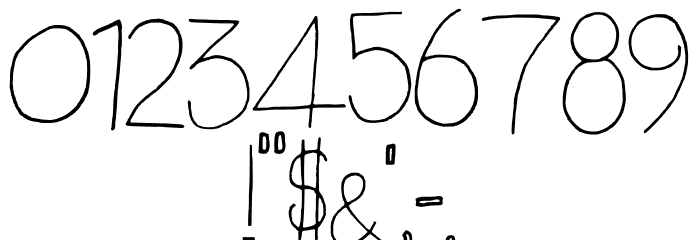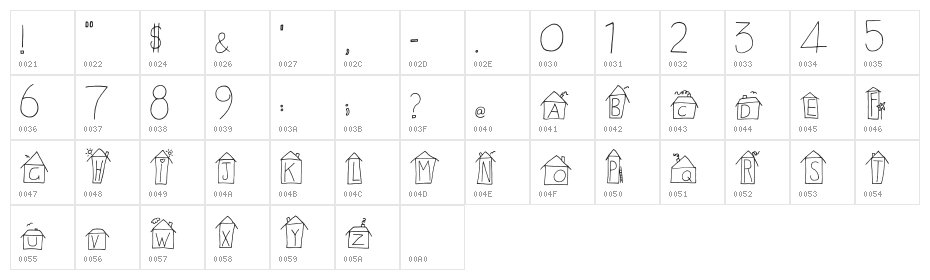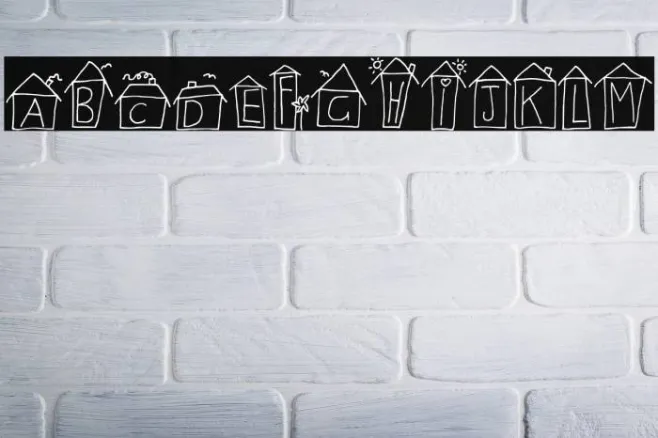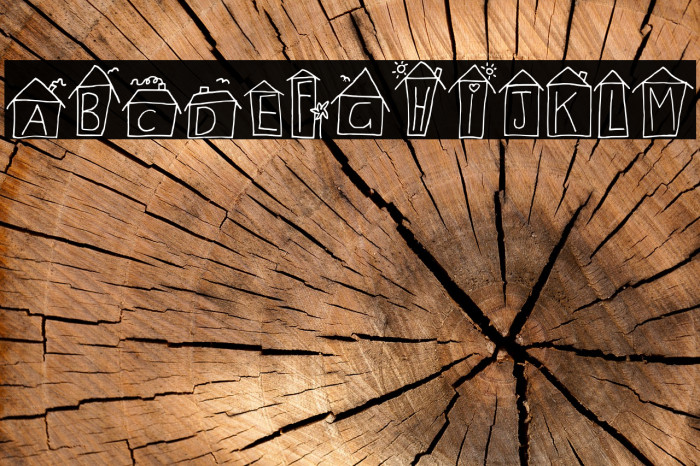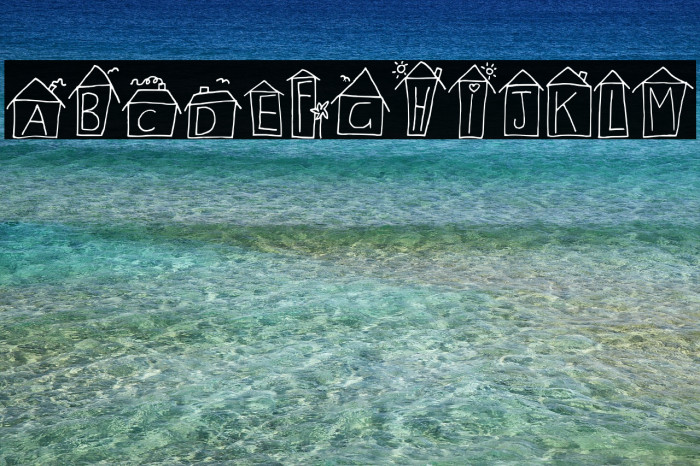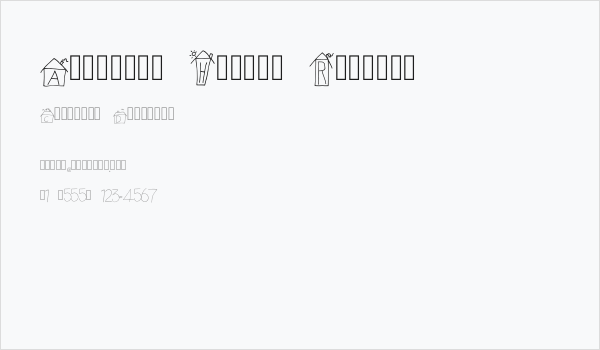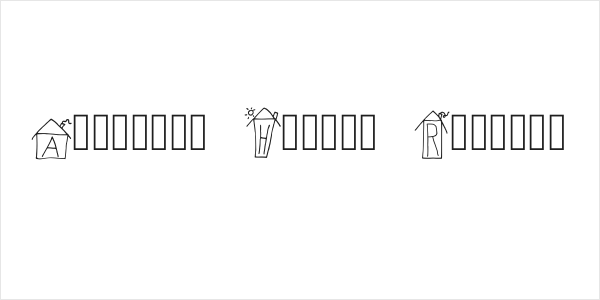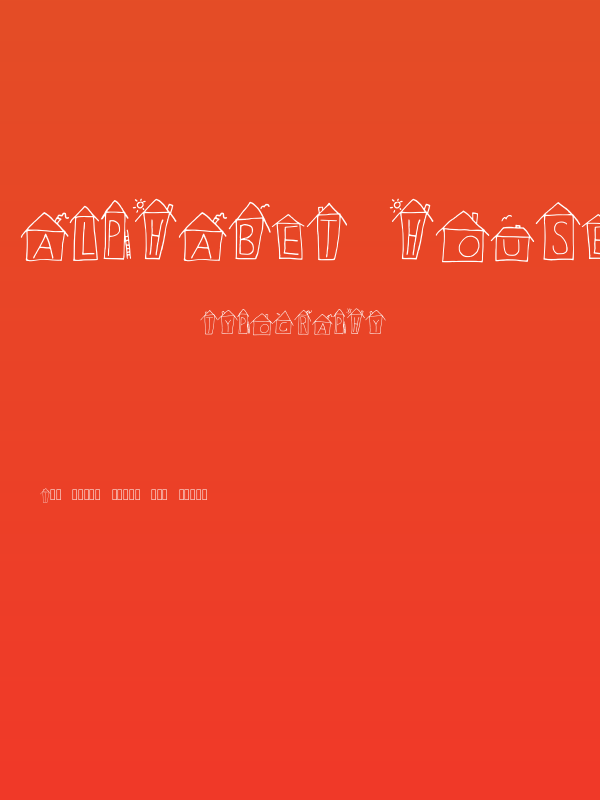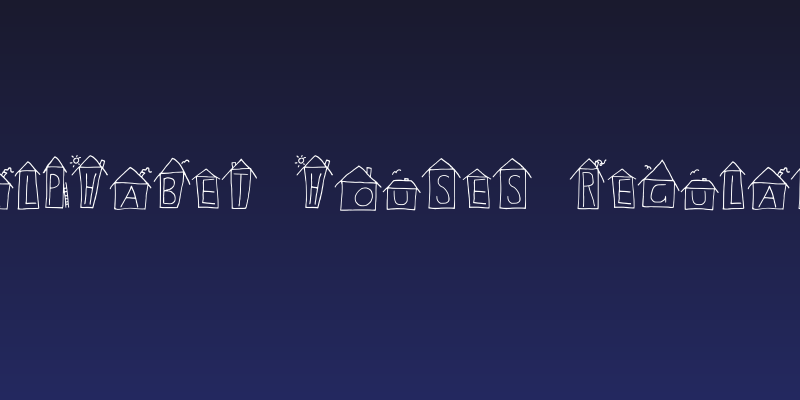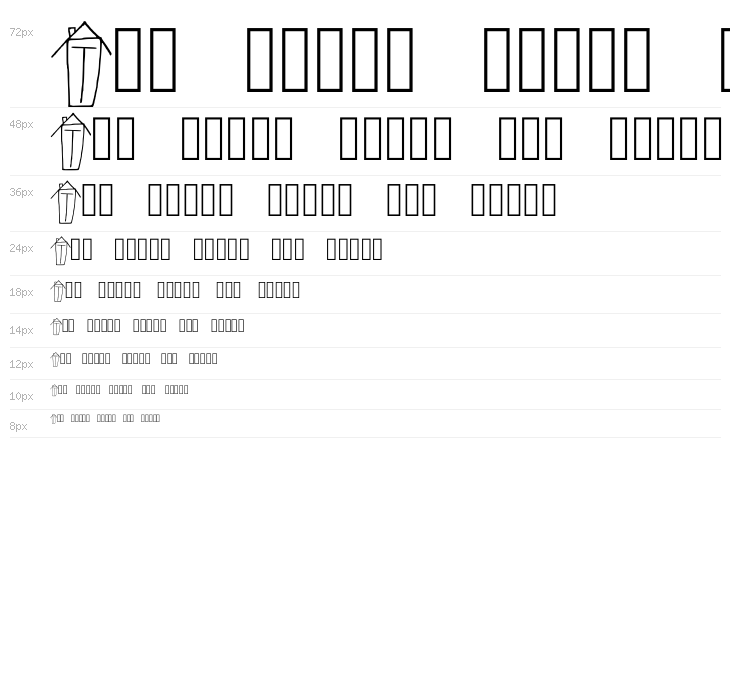
Alphabet Houses Regular Font
Alphabet Houses Regular Description
This whimsical and playful font features letters designed as charming little houses, each with unique details like chimneys, windows, and roofs. The uppercase letters are bold and imaginative, with each character resembling a distinct house structure. The lowercase letters maintain the same house-like theme, offering a cohesive and creative look. The numbers are more straightforward, with a hand-drawn style that complements the overall theme. Special characters are also included, maintaining the playful aesthetic. This font is perfect for projects that require a fun and imaginative touch, such as children's books, playful branding, or creative posters.
| Overall Style | Whimsical, Playful |
| Proposed Projects | Ideal for children's books, creative branding, playful posters, and educational materials. |